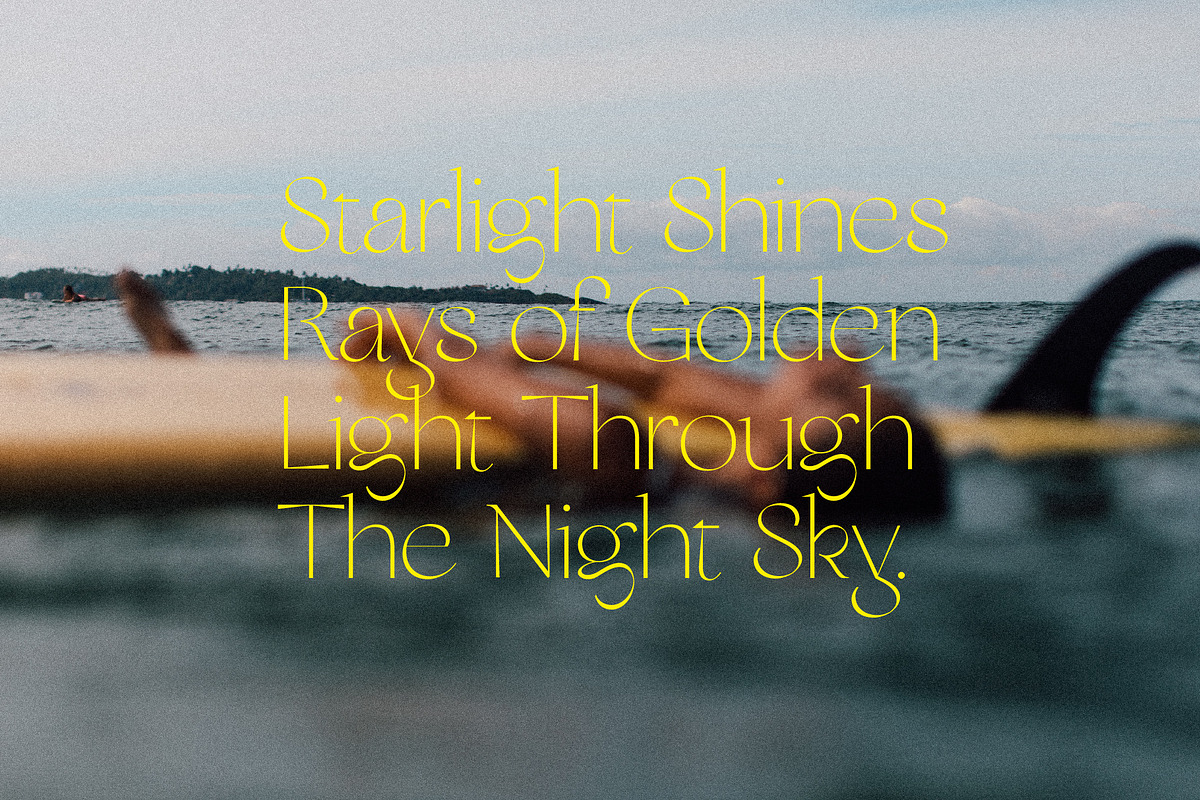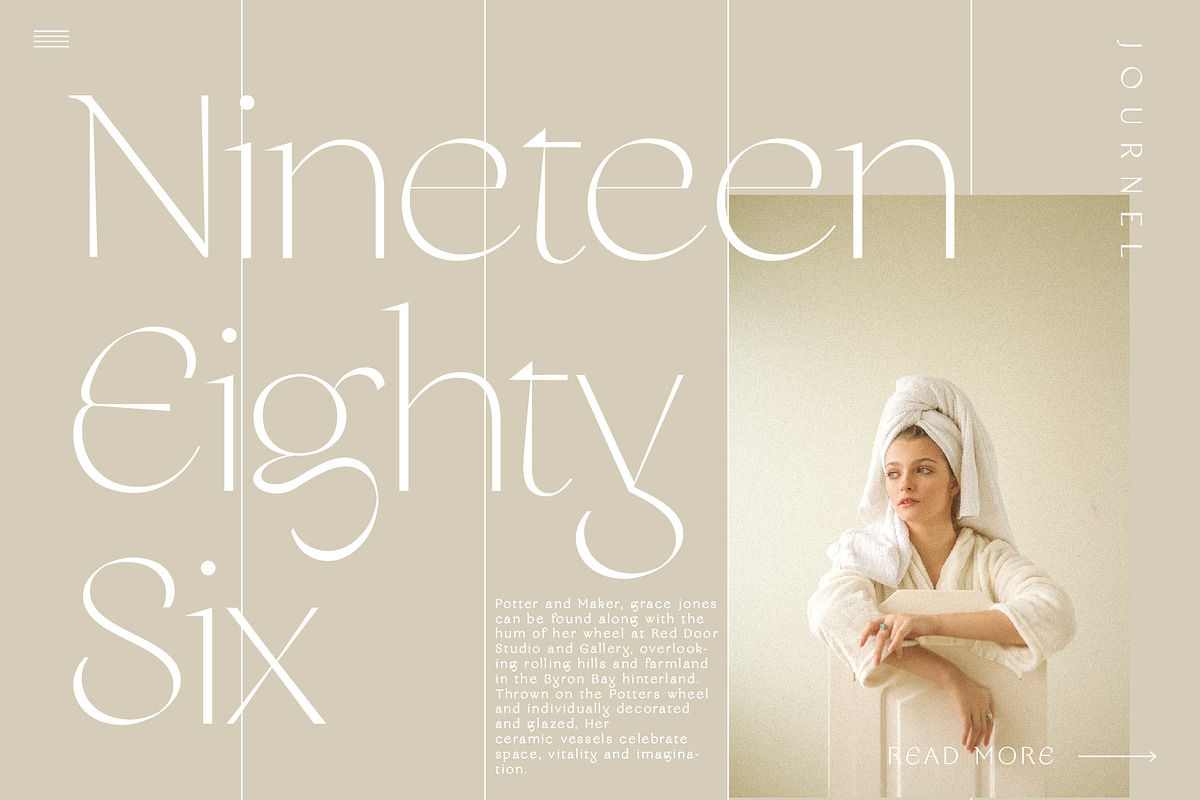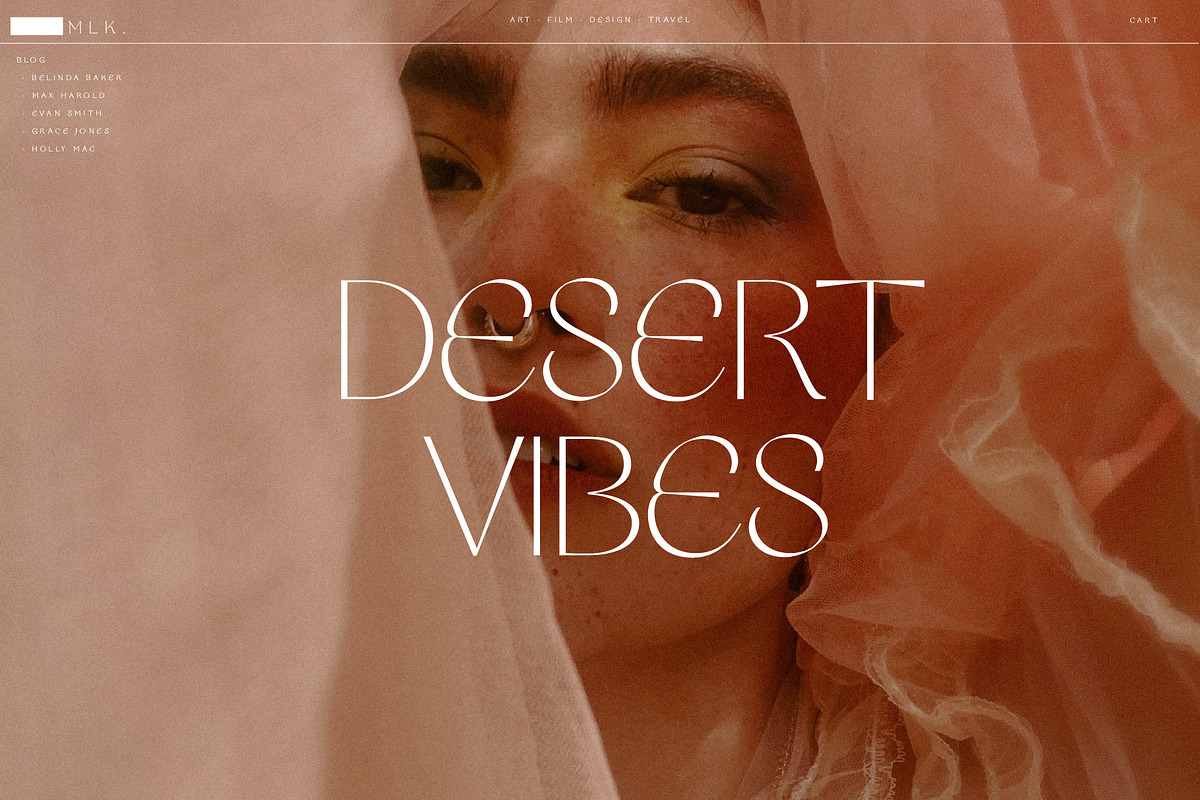
Starlight Font
Starlight is a multi-weight modern chic typeface that is classy but still fun. It’s light and dainty with a bold option for a thicker body copy. A selection of unique characters makes this typeface memorable and stylish.
• Regular and Bold styles
• Full upper/lowercase, numbers, punctuation
• Multilingual support ( including Polish)